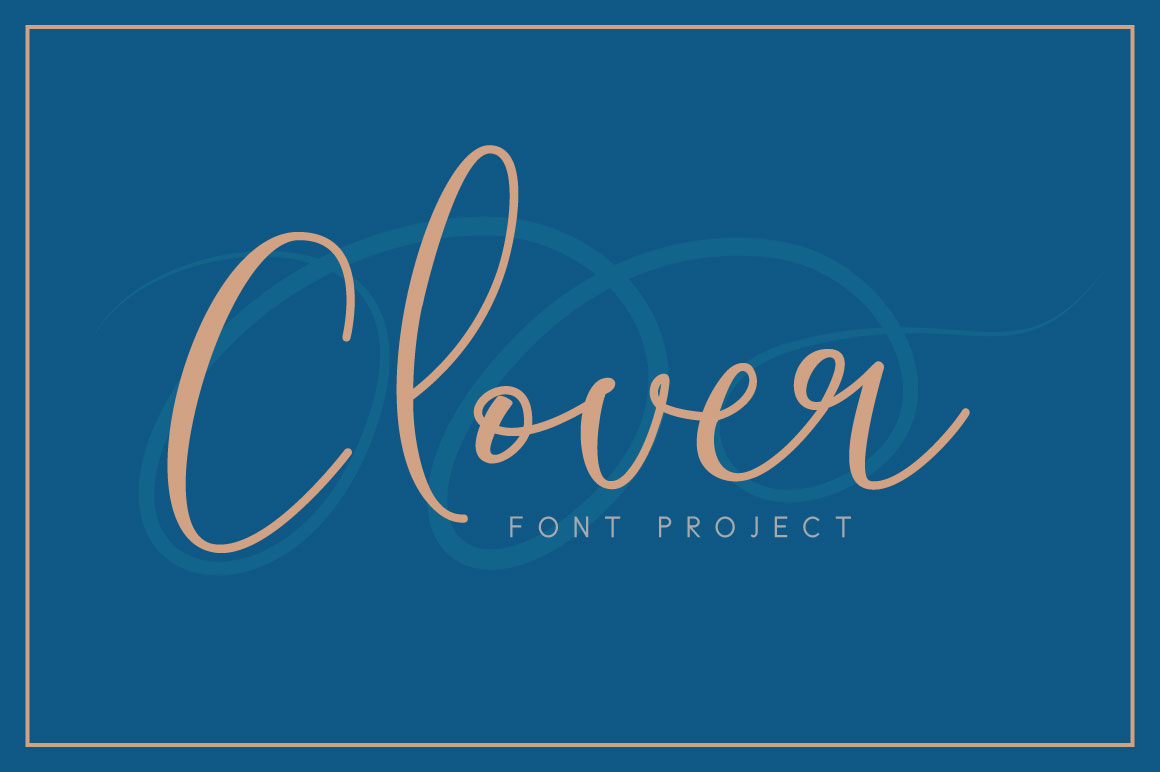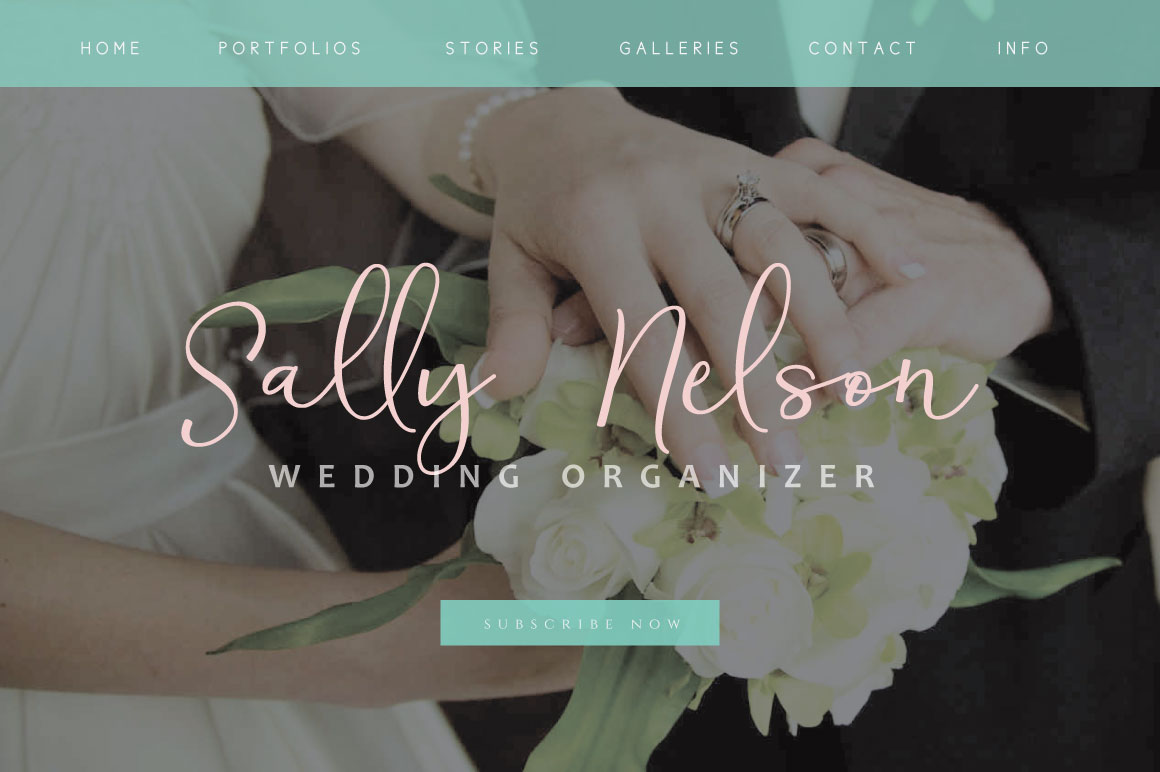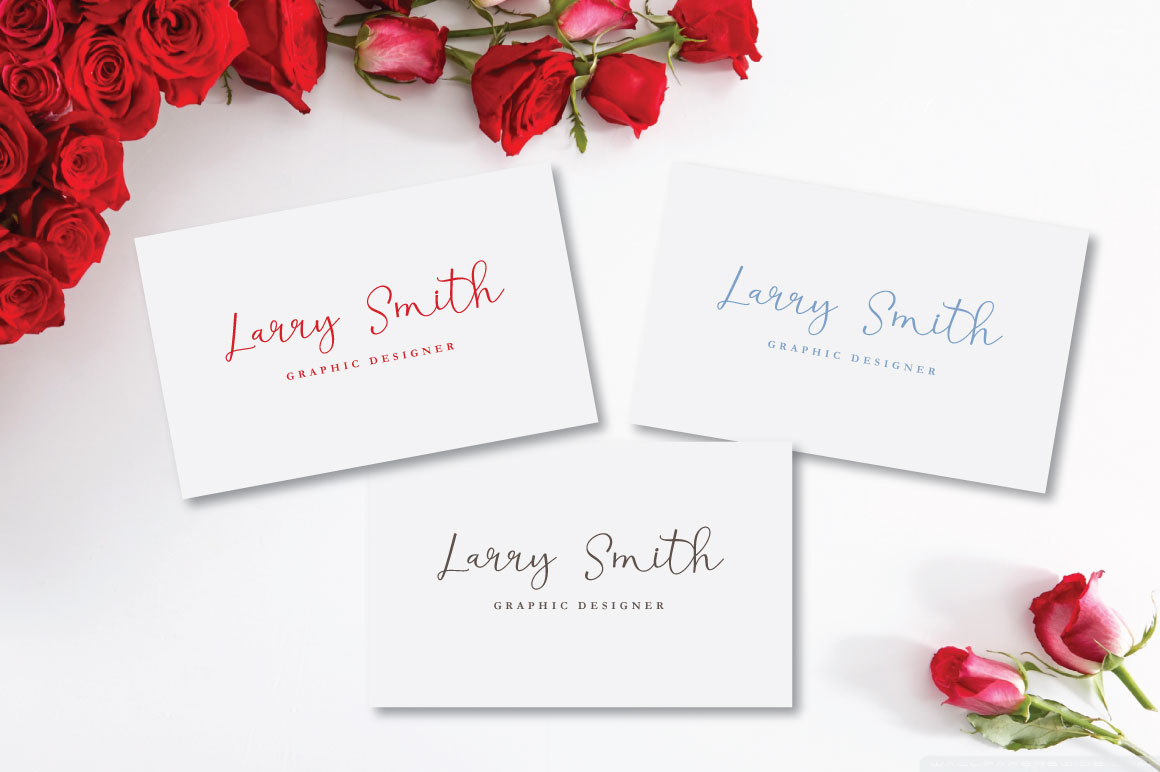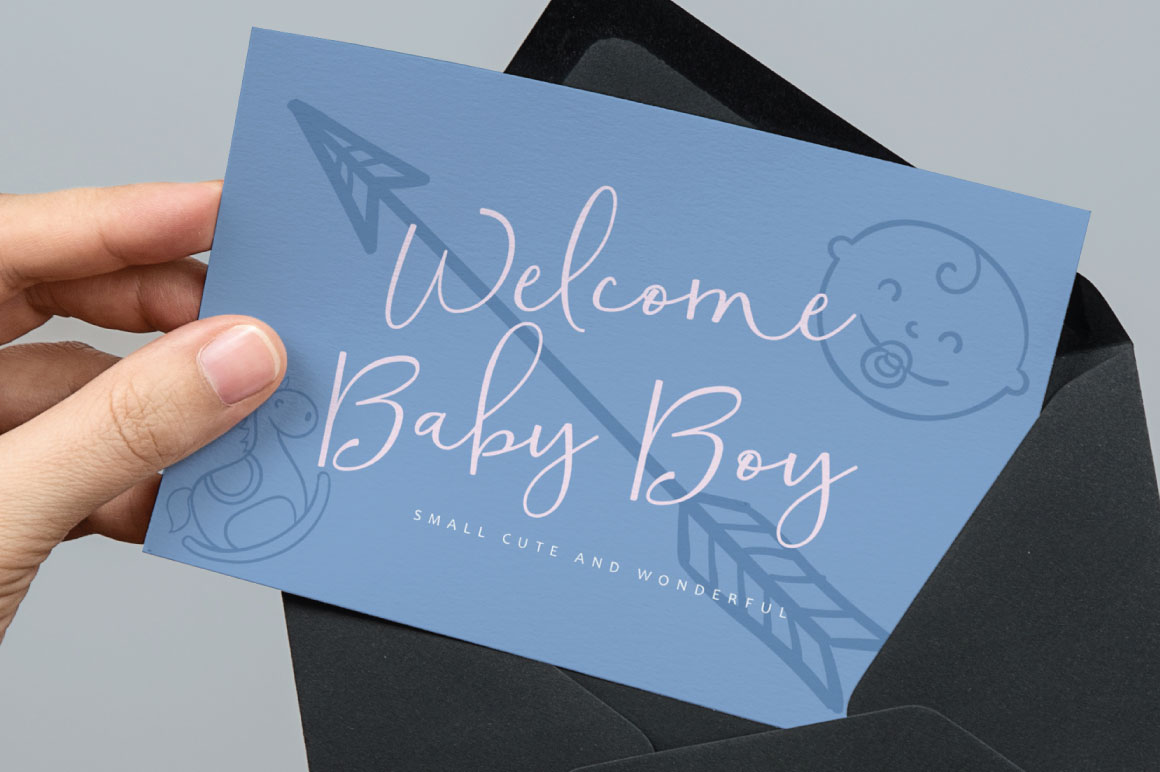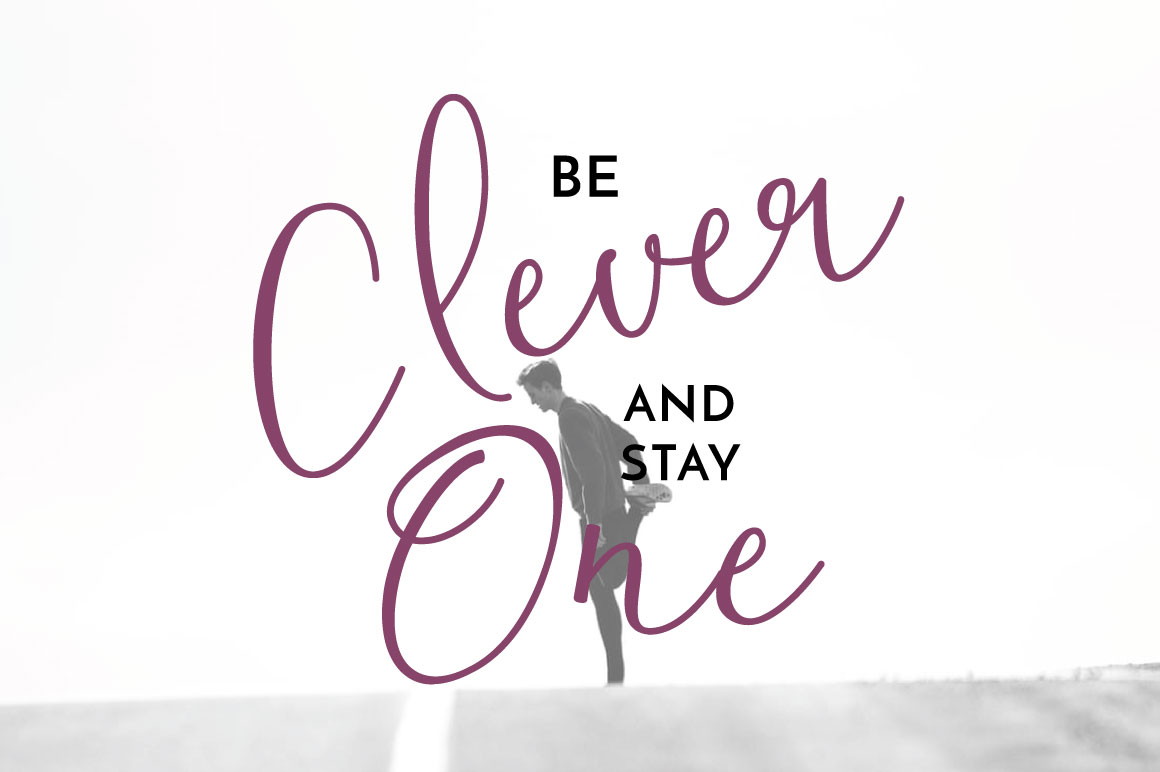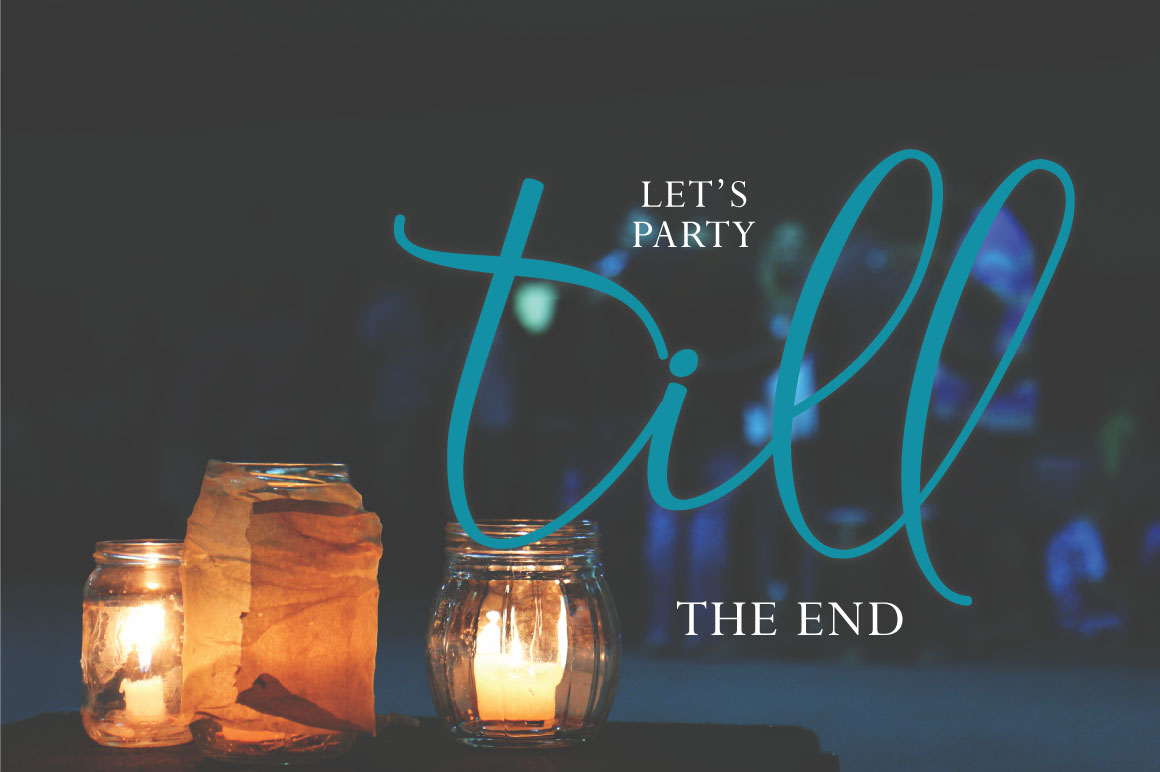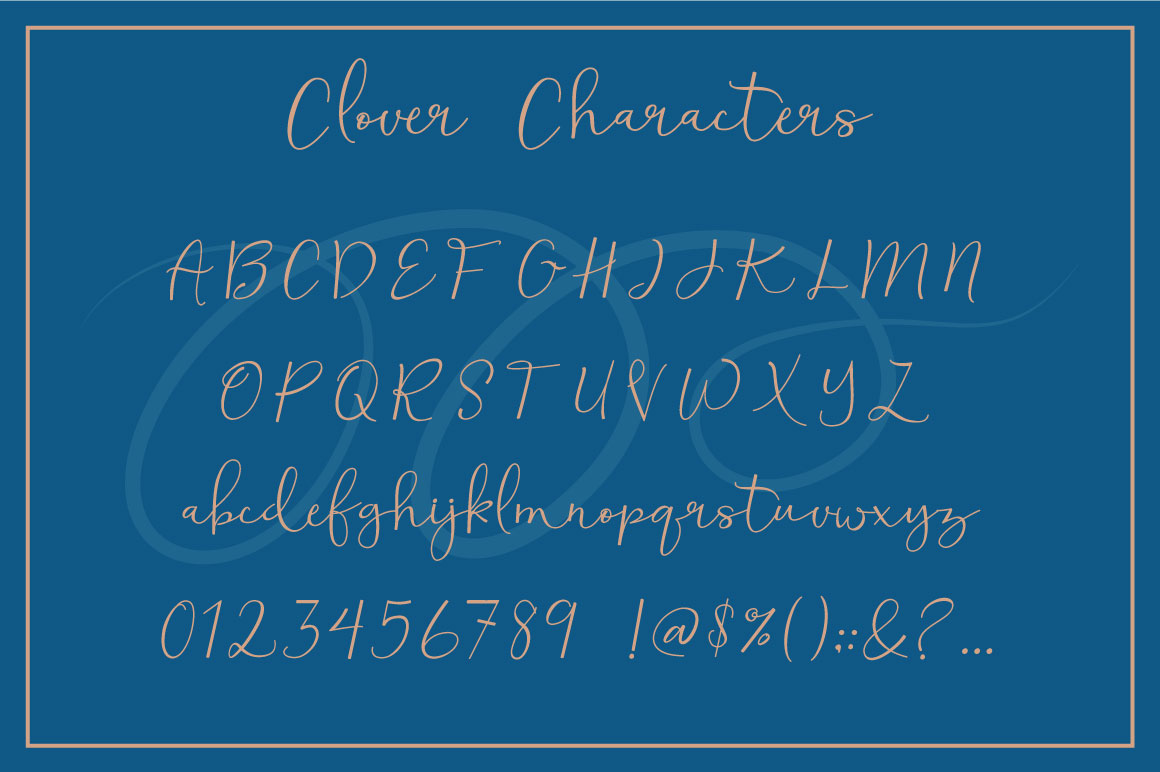
HomeScript FontsClover Font Script Fonts Clover Font FacebookXPinterestWhatsApp Clover Font Poster 2 Clover Font Poster 3 Clover Font Poster 4 Clover Font Poster 5 Clover Font Poster 6 Clover Font Poster 7 About Clover Font Clover is a simple, casual handwritten font. This charming typeface will help you design flowing texts. DOWNLOAD NOW People also explored Limitless Possibility Font Clockwork Lemon Font Chilli Font Defitta Marcella Font Hello Angela Font Hasta Font Diamond Monogram Font The Centurion Font 312 0 TagsClover Font Previous articleRussell FontNext articleOld Maple Font LEAVE A REPLY Cancel reply Comment: Please enter your comment! Name:* Please enter your name here Email:* You have entered an incorrect email address! Please enter your email address here Website: Save my name, email, and website in this browser for the next time I comment. Personal Use Free Pasile Personal Use Free Read more about this font Susanna Personal Use Free Read more about this font Castina Personal Use Free Read more about this font Limejuice Personal Use Free Read more about this font BLOG Top 10 Handwritten Fonts That Elevate Your Designs Top 10 Handwritten Fonts That Will Elevate Your Designs Handwritten fonts bring a warm, personal touch to every creative project. Whether you're designing logos, invitations,... 5 Fonts That Will Dominate Design Trends in 2026 Fonts That Capture the Spirit of New York City How to Install and Use Fonts on Windows, macOS, and Web Projects